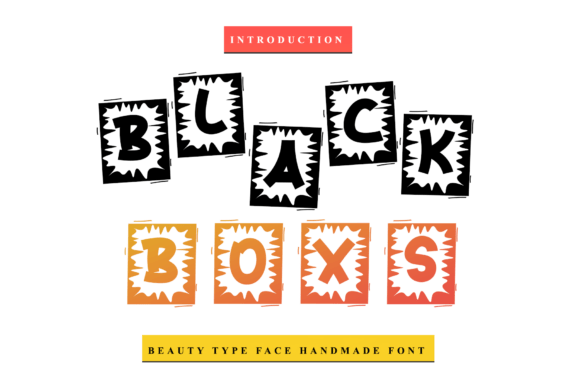
Unleash Your Creativity with Black Boxs Font
Have you ever been in the midst of a design project, pouring your heart and soul into it, only to hit a roadblock when it comes to finding the perfect font? I recall a particularly frustrating experience when I was working on a streetwear branding project. My client wanted a font that was bold, edgy, and playful, but I just couldn’t seem to find the right fit. That was until I stumbled upon Black Boxs, a high-energy, illustrative display font that’s been a game-changer for my designs.
The Power of Black Boxs
Black Boxs is more than just a font – it’s a statement piece. With its thick, hand-drawn letterforms set against explosive, jagged-edged backgrounds, this typeface captures a playful, DIY aesthetic that’s perfect for designs that need to pop off the page. The true strength of Black Boxs lies in its staggered, ransom-note rhythm, creating a “boxed-in” effect that instantly adds a graphic element to your design.
What I Love About Black Boxs
- ✨ Unique, distressed comic-style frames for each character
- ✅ High-energy, playful aesthetic that’s perfect for streetwear branding, edgy editorial headlines, indie music posters, or energetic social media content
- 💥 Ability to add vibrant gradients for an extra-bold visual statement
- 🔥 Extensive OpenType features, glyphs, and stylistic alternates for endless creative possibilities
While Black Boxs is an incredible font, there are a few things to keep in mind:
- ⚠️ Some characters may require manual adjustments to get the perfect fit, due to the font’s distressed nature
- 🤔 May not be the best choice for body text or smaller font sizes, as it can be overwhelming
Black Boxs was inspired by the DIY ethos of streetwear culture and the bold, graphic aesthetic of comic books. The font’s creator wanted to capture the energy and playfulness of these influences, while also providing a versatile tool for designers to express themselves.
| Font Name | Black Boxs Font |
| Author | Sansana |
| What type of designs is Black Boxs best suited for? | Black Boxs is perfect for streetwear branding, edgy editorial headlines, indie music posters, or energetic social media content. |
| Can I use Black Boxs for body text? | While Black Boxs can be used for body text, it’s recommended for larger font sizes and display text due to its bold, distressed nature. |
| Is Black Boxs available in different weights or styles? | Yes, Black Boxs comes in a range of styles and weights, allowing you to experiment with different looks and feels. |
Black Boxs is a game-changing font that’s sure to elevate your designs and make a statement. With its bold, playful aesthetic and extensive OpenType features, this font is perfect for designers, crafters, and creative hobbyists looking to add some extra flair to their work. So why settle for ordinary fonts when you can make the box the star of the show?